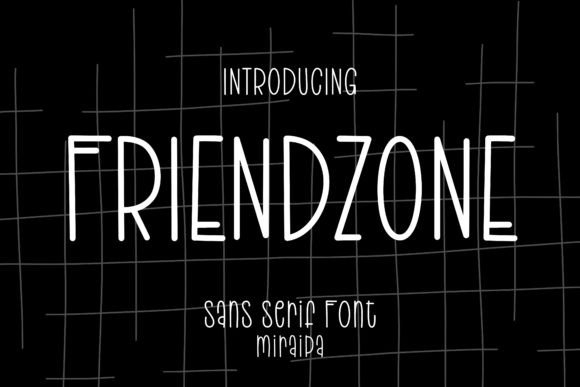
Introducing Friendzone Font: The Perfect Addition to Your Fonts Library
Are you looking for a font that can add a touch of friendliness and charm to your projects? Look no further than Friendzone Font! Designed in a cute and friendly sans serif font style, Friendzone is the perfect choice for anyone looking to add a bit of whimsy and personality to their designs. In this article, we’ll take a closer look at Friendzone Font, its features, and how you can use it to bring your DIY projects to life.
What is Friendzone Font?
Friendzone Font is a sans serif font designed with a cute and friendly style in mind. Its charming, classic, and minimal design makes it perfect for a wide range of projects, from fun and playful designs to more formal and elegant ones. The font’s simplicity and readability make it easy to use in various contexts, from digital designs to print materials.
Key Features of Friendzone Font
- Cute and Friendly Design: Friendzone Font is designed to be cute and friendly, making it perfect for projects that require a touch of personality and whimsy.
- Sans Serif Font Style: The font’s sans serif design makes it clean, modern, and easy to read.
- Charming, Classic, and Minimal: Friendzone Font’s design is charming, classic, and minimal, making it perfect for a wide range of projects.
- Highly Versatile: The font is highly versatile and can be used in various contexts, from digital designs to print materials.
Use Cases for Friendzone Font
Friendzone Font is perfect for a wide range of projects, including:
- Easter and Spring-themed designs: Add a touch of friendliness and whimsy to your Easter and Spring-themed designs with Friendzone Font.
- Back to School designs: Use Friendzone Font to create fun and playful back to school designs, such as posters, invitations, and worksheets.
- Wedding and Party decorations: Friendzone Font’s charming design makes it perfect for wedding and party decorations, such as invitations, banners, and centerpieces.
- Fall and Halloween-themed designs: Add a touch of friendliness and spookiness to your Fall and Halloween-themed designs with Friendzone Font.
- Christmas and Holiday-themed designs: Use Friendzone Font to create festive and fun Christmas and holiday-themed designs, such as posters, invitations, and greeting cards.
- Posters and Flyers: Friendzone Font is perfect for creating eye-catching posters and flyers for various events and promotions.
- Blogs and Social Media Posts: Use Friendzone Font to add a touch of personality and friendliness to your blog posts and social media updates.
- Clothing and Accessories: Friendzone Font’s design makes it perfect for use on clothing and accessories, such as t-shirts, hats, and bags.
- Child-related designs: Friendzone Font is perfect for use in child-related designs, such as children’s books, nursery decor, and kids’ party decorations.
- Greeting Cards and Invitations: Use Friendzone Font to create personalized and charming greeting cards and invitations for various occasions.
Why Choose Friendzone Font?
There are many reasons why you should choose Friendzone Font for your projects. Here are a few:
- Unique and Eye-catching Design: Friendzone Font’s design is unique and eye-catching, making it perfect for projects that require a touch of personality and whimsy.
- Highly Readable: The font’s sans serif design and simple style make it highly readable, even at small sizes.
- Versatile: Friendzone Font is highly versatile and can be used in various contexts, from digital designs to print materials.
- Easily Customizable: The font is easily customizable, allowing you to adjust its size, color, and style to suit your project’s needs.
In conclusion, Friendzone Font is a perfect addition to your fonts library. Its cute and friendly sans serif design makes it perfect for a wide range of projects, from fun and playful designs to more formal and elegant ones. With its high readability, versatility, and customizability, Friendzone Font is a great choice for anyone looking to add a touch of personality and whimsy to their designs. So why wait? Download Friendzone Font today and bring your DIY projects to life!
- What is Friendzone Font?
- Friendzone Font is a sans serif font designed with a cute and friendly style in mind.